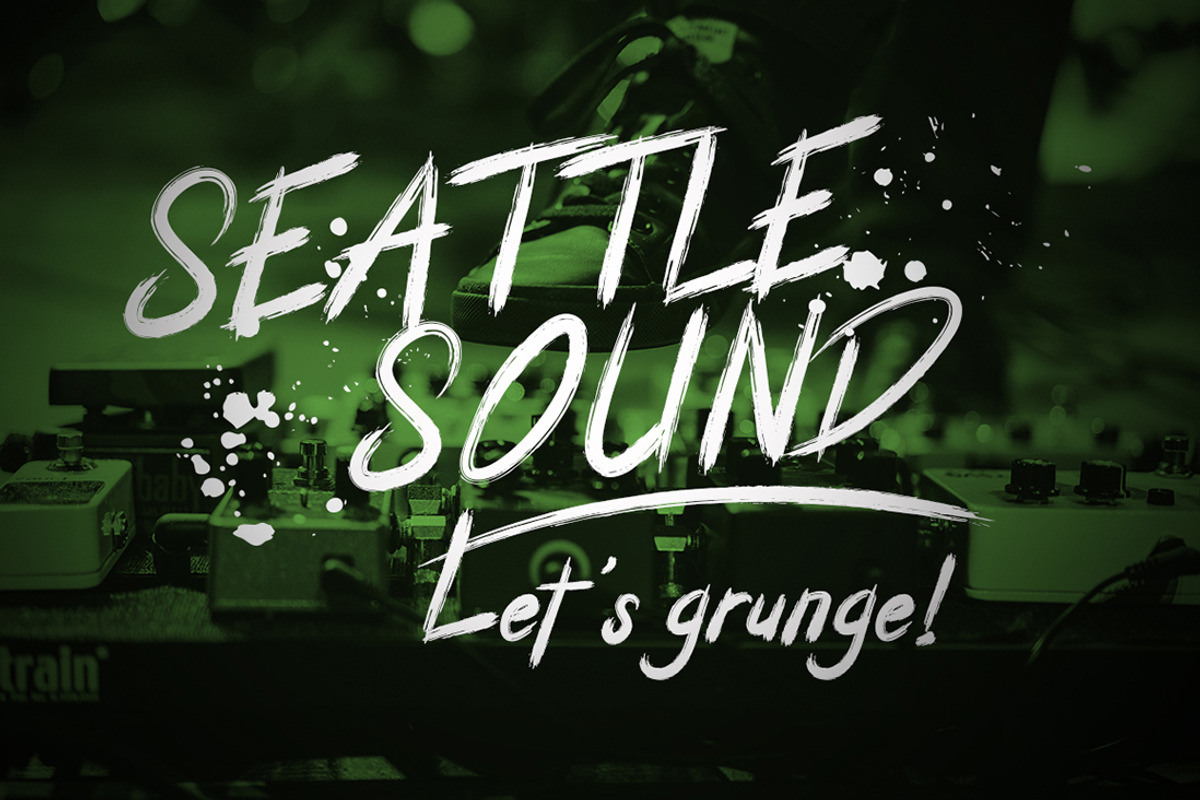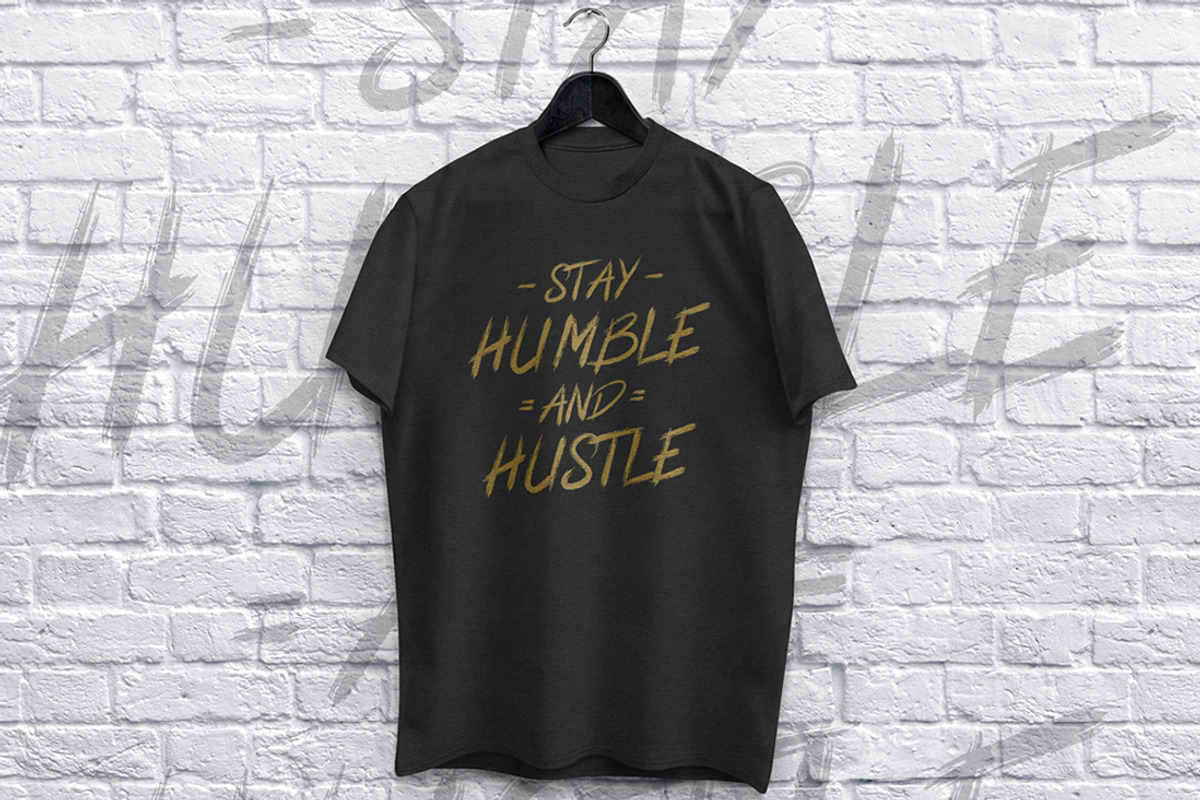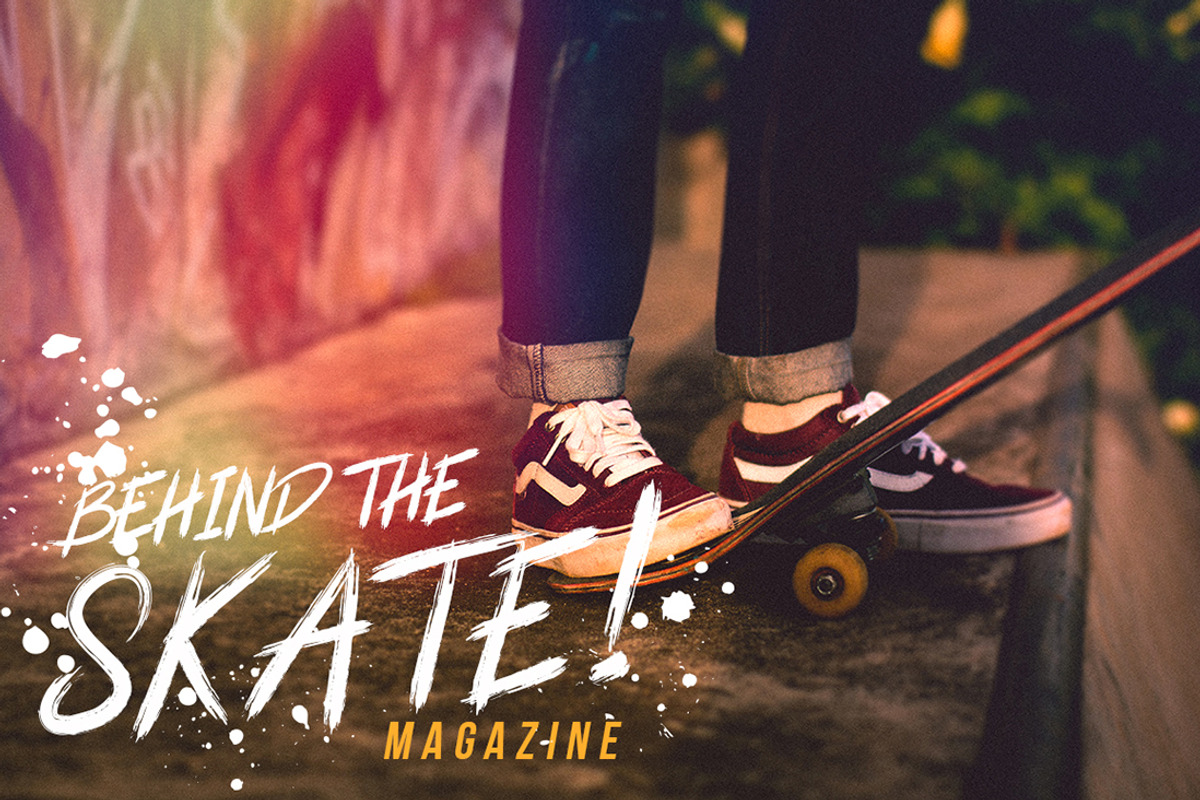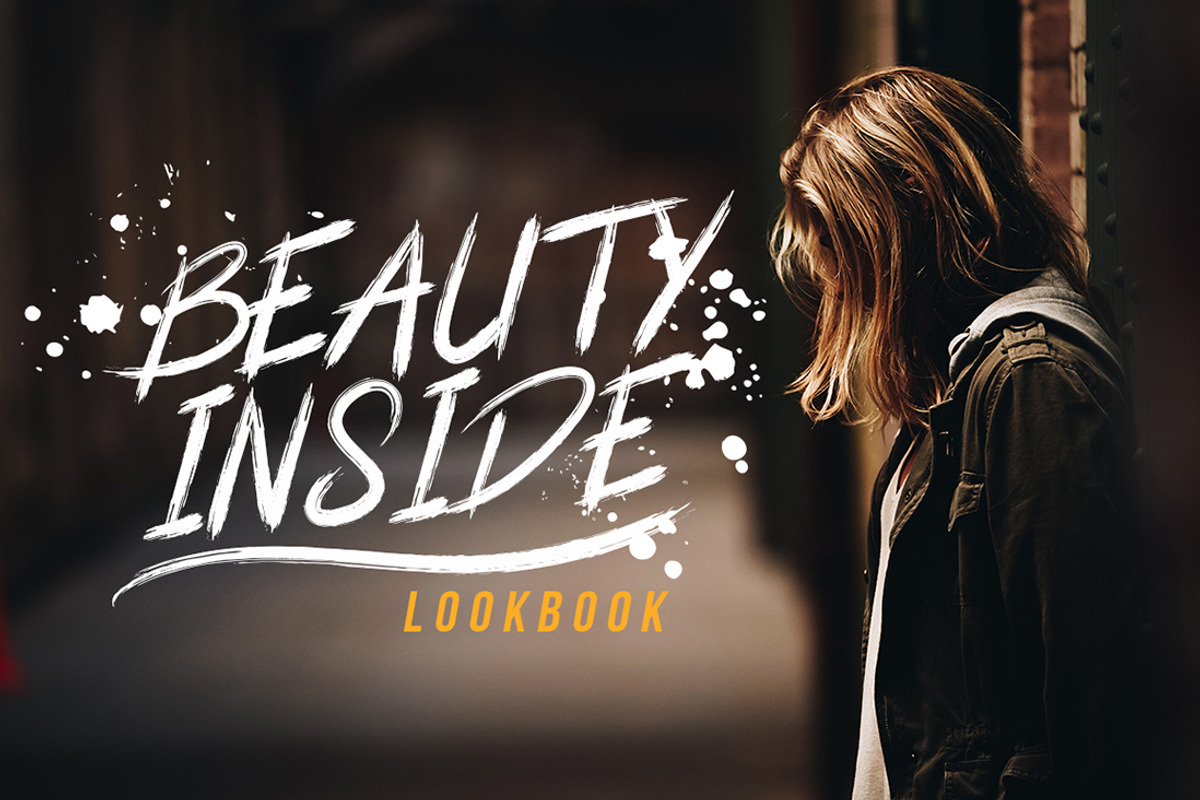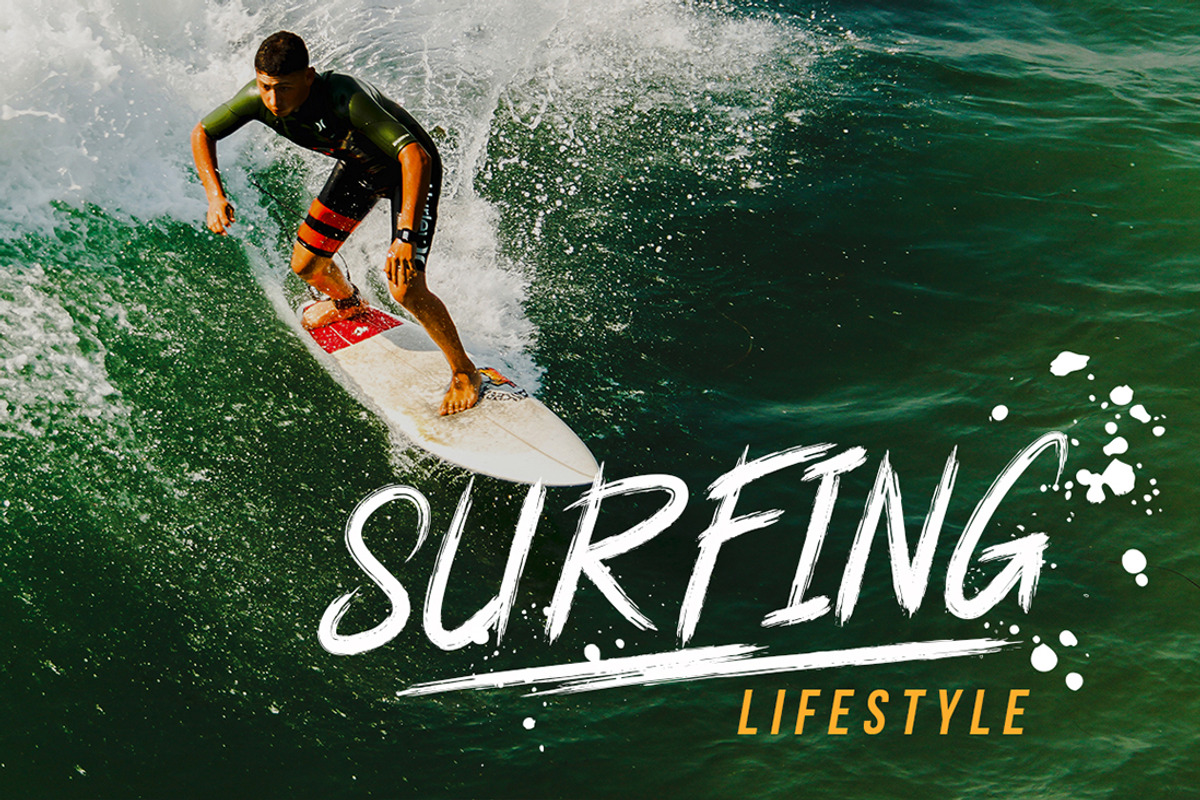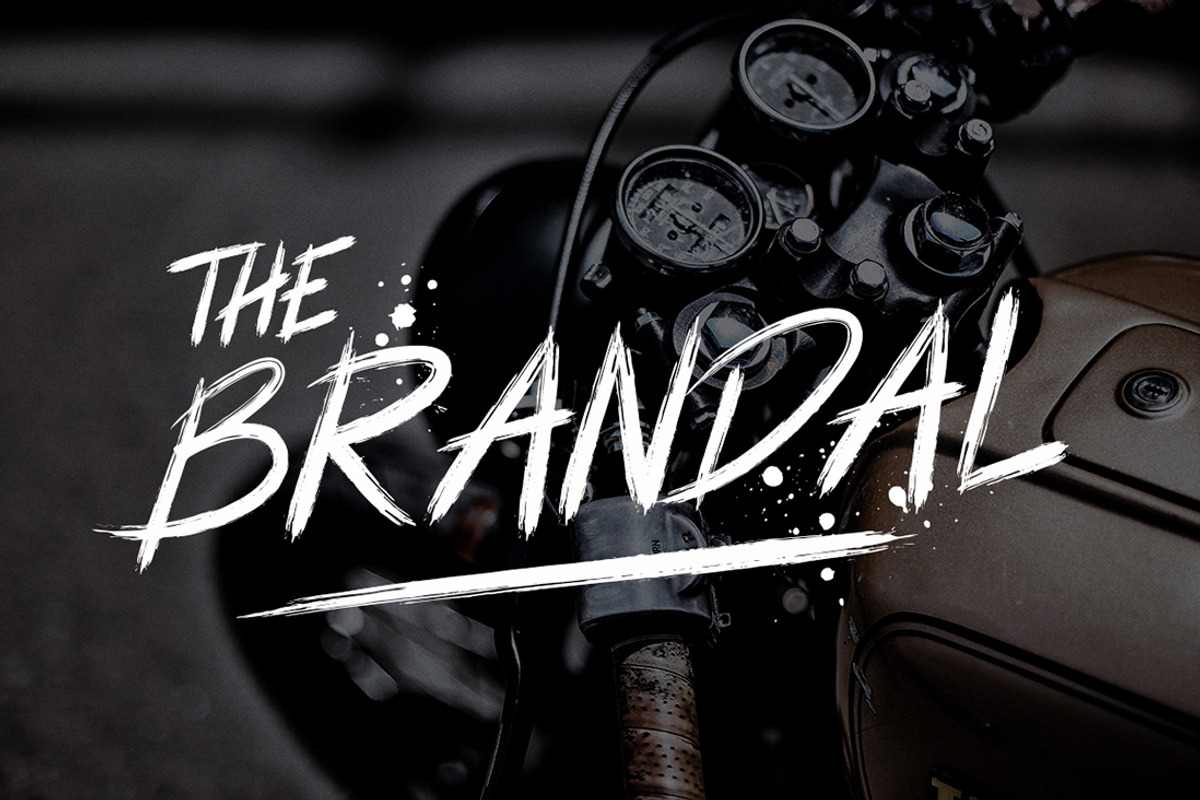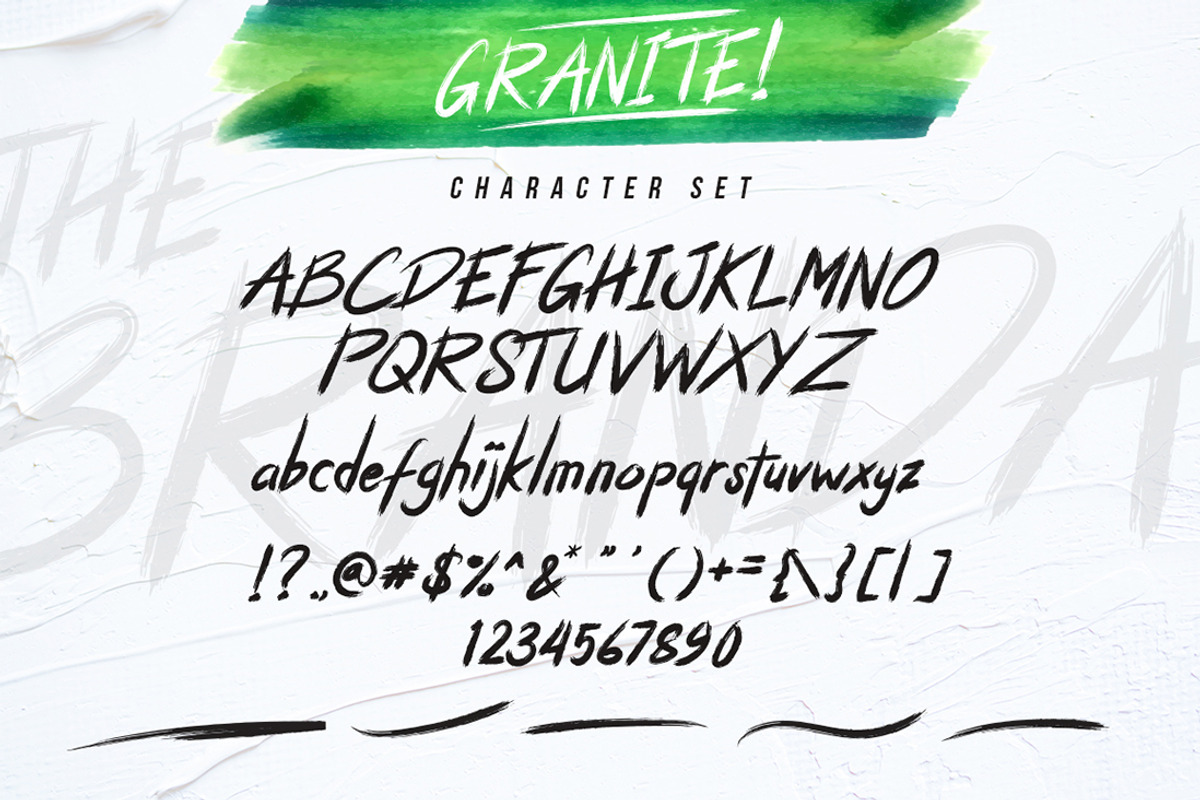
Granite Brush Business Font
Granite is handmade authentic font brush with stylish street lifestyle and looks like extreme sport style usage. Best match for logos, header, titles, prints, apparel & other creative process possibilities.
Why Granite Brush Business Font is worth a look
Granite Brush Business Font by Creatype Studio fits naturally into Branding, posters, packaging, typography.